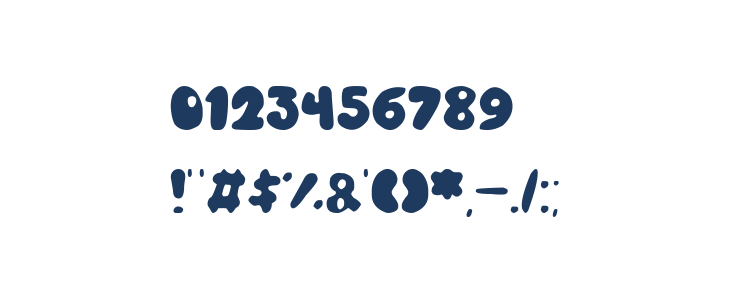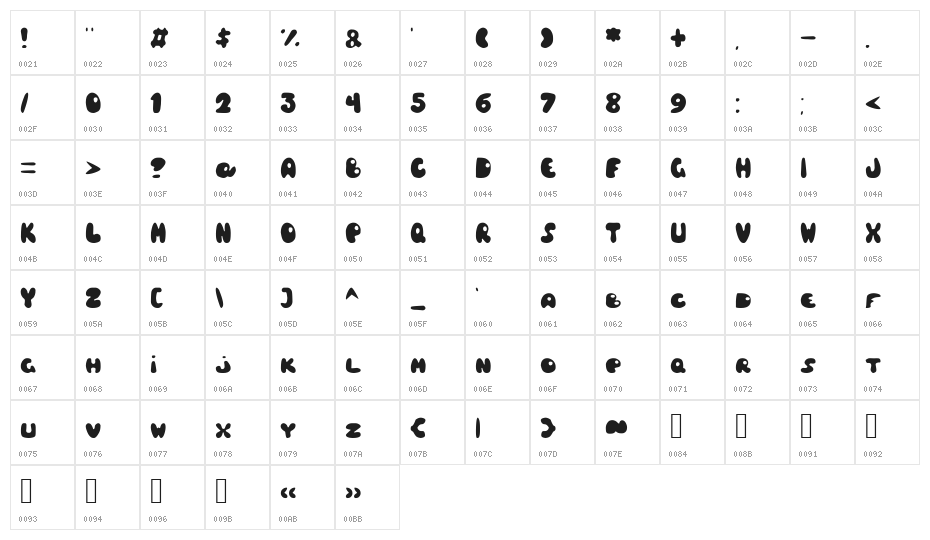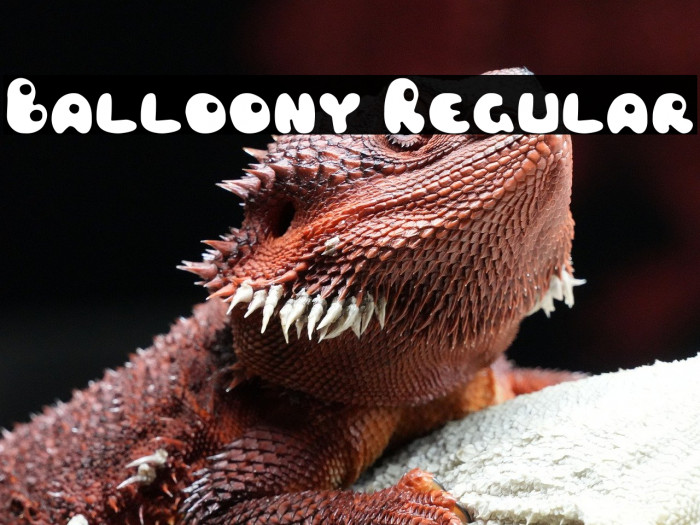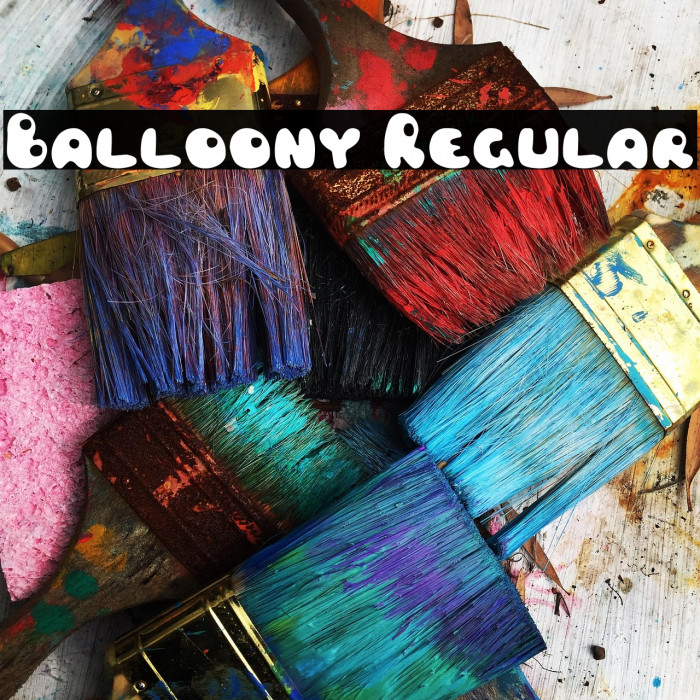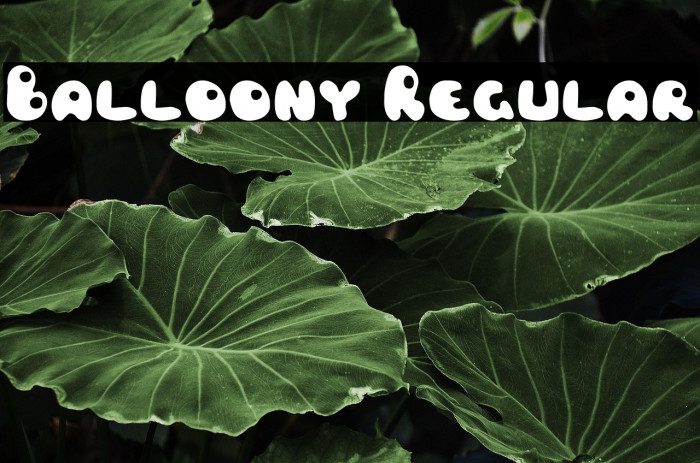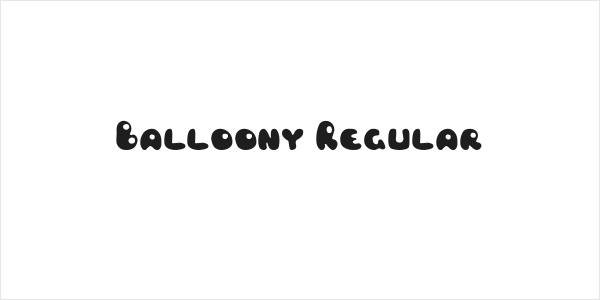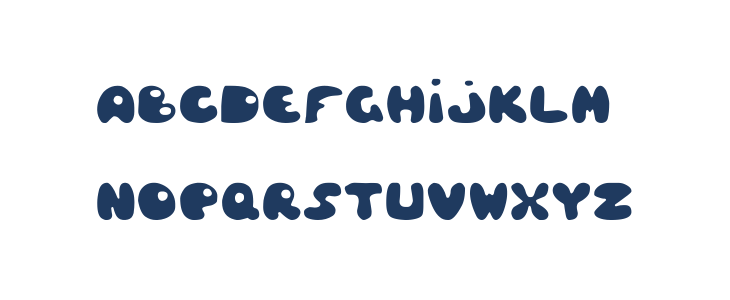
Balloony Regular Font
Balloony Regular Description
This playful and whimsical font features rounded, balloon-like characters that convey a sense of fun and lightheartedness. The letters are bold and bubbly, with a consistent thickness throughout, giving them a uniform and cohesive appearance. The font includes both uppercase and lowercase letters, numbers, and a variety of special characters, all maintaining the same playful style. The rounded edges and inflated appearance make it ideal for projects that require a cheerful and informal touch.
| Proposed Projects | Ideal for children's books, party invitations, playful branding, and any project that requires a fun and informal vibe. |